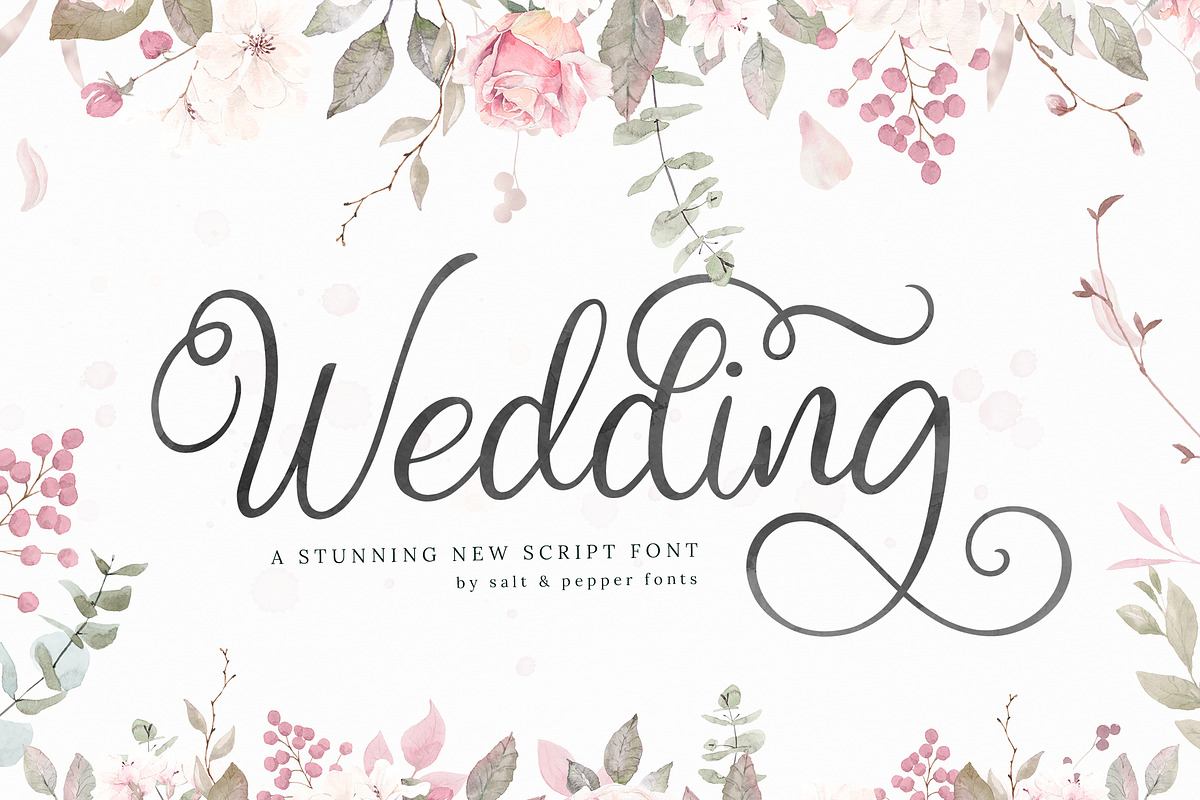
Say “I do” to elegance with Wedding Script Font Free Download — a beautifully flowing typeface crafted for romantic and heartfelt design. With its graceful curves and handwritten charm, this font is ideal for wedding invitations, save-the-date cards, love letters, bridal branding, and any project that calls for a soft, elegant touch.
Wedding Script captures the essence of romance and celebration. It includes uppercase and lowercase letters, numerals, punctuation, and multilingual support, making it both stylish and versatile for a wide range of uses.